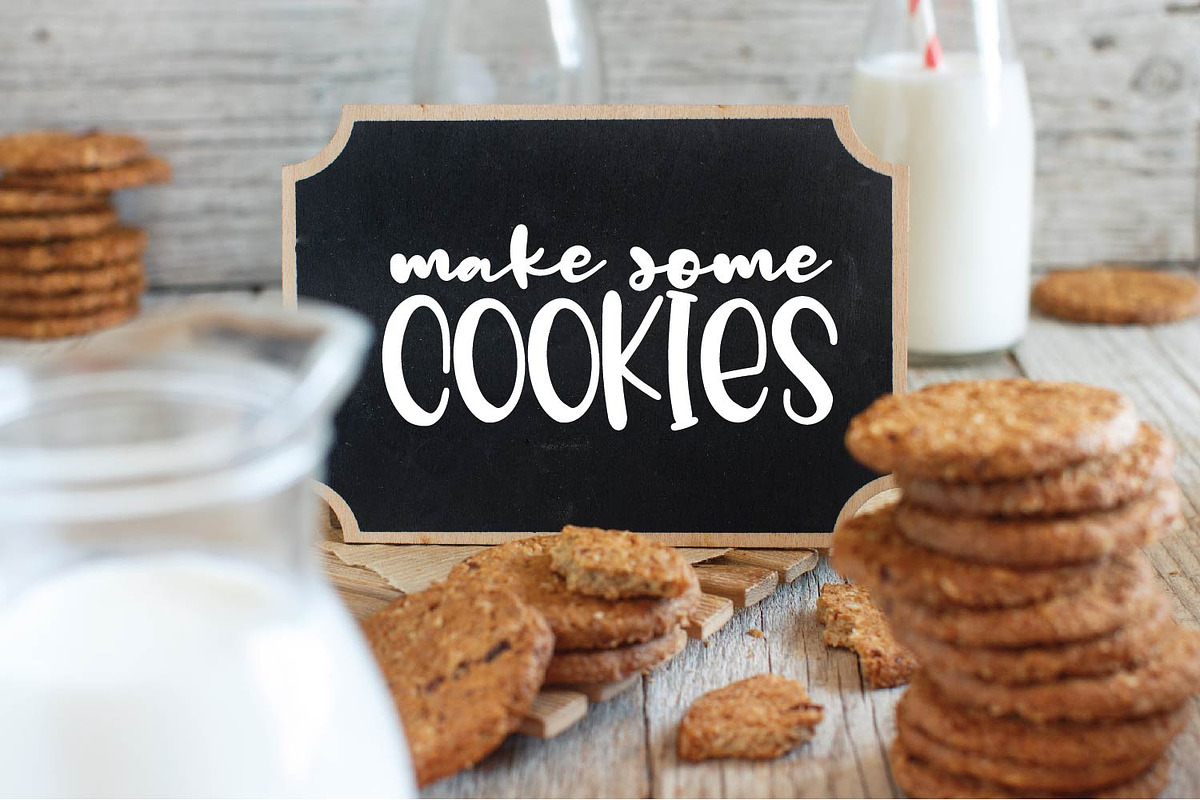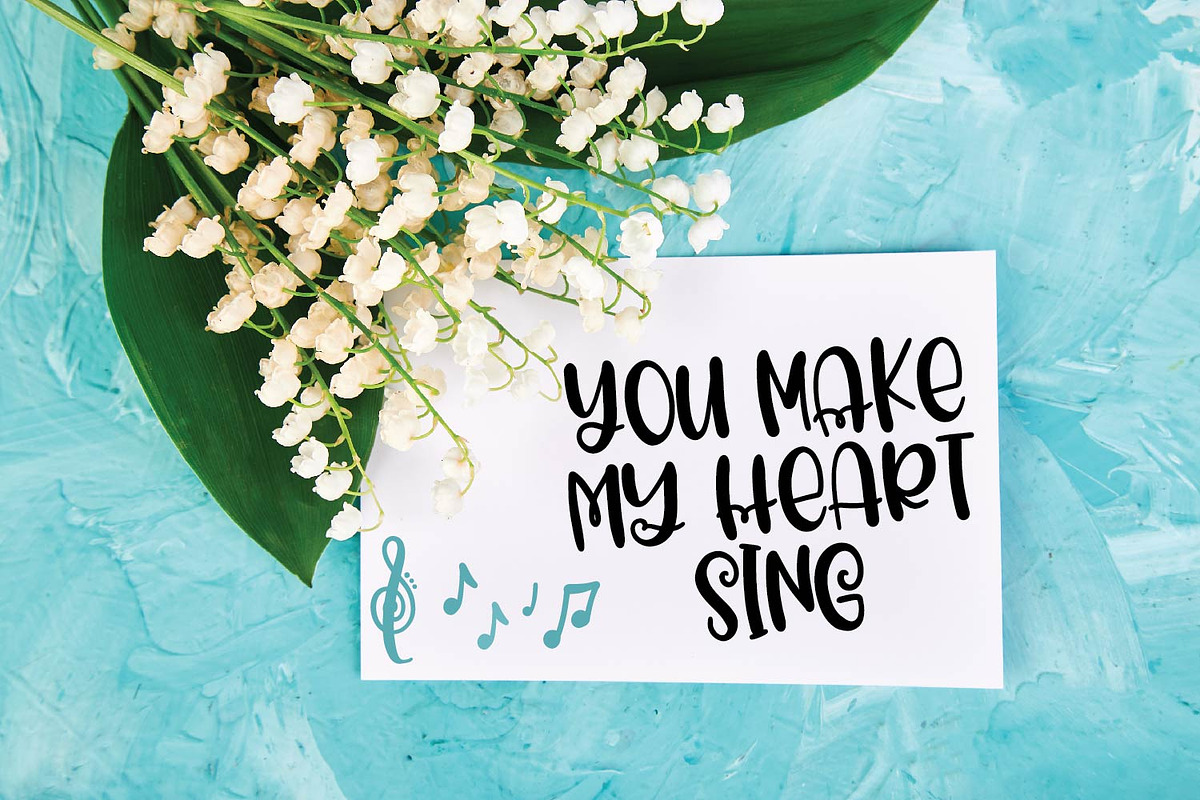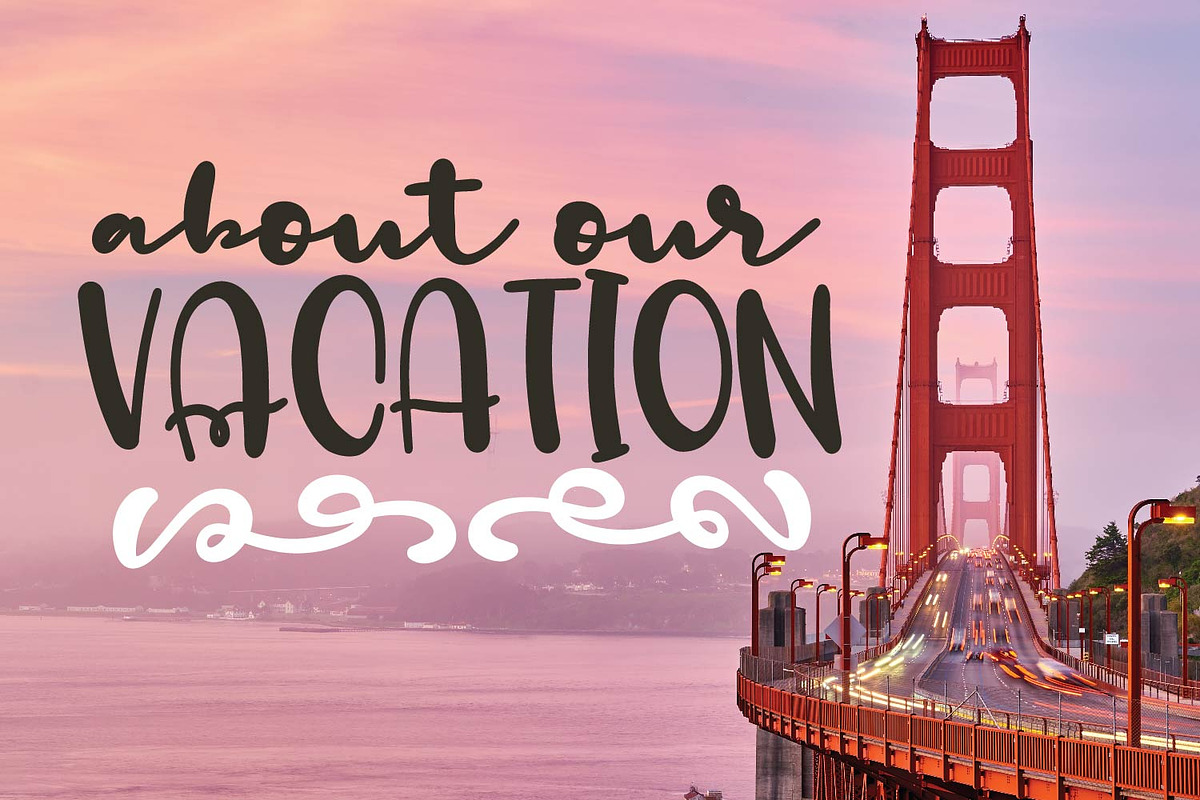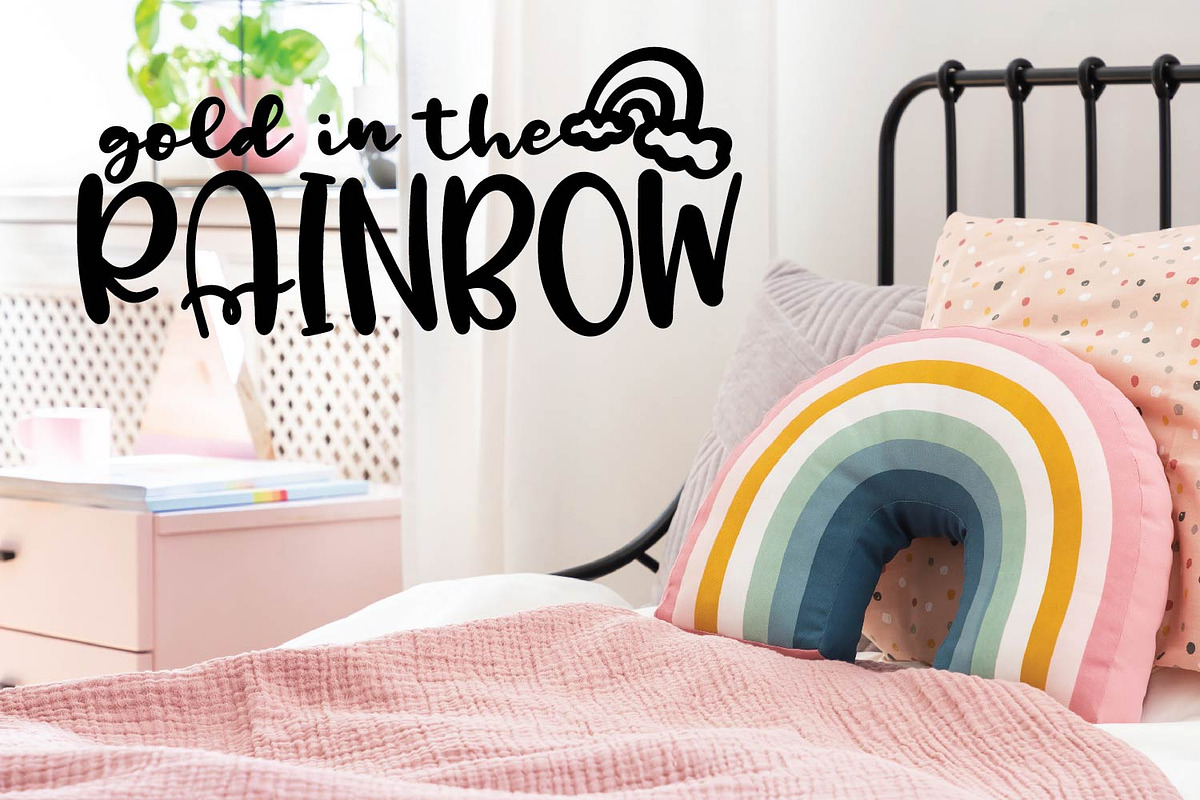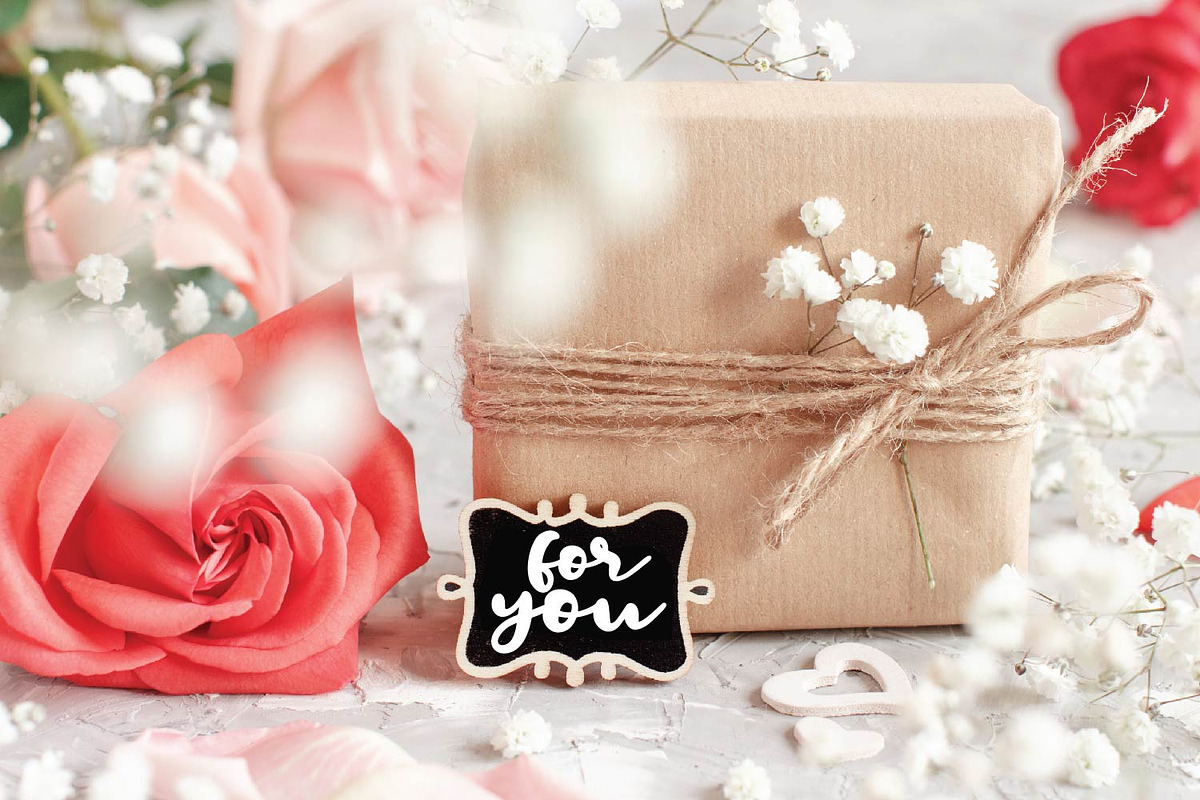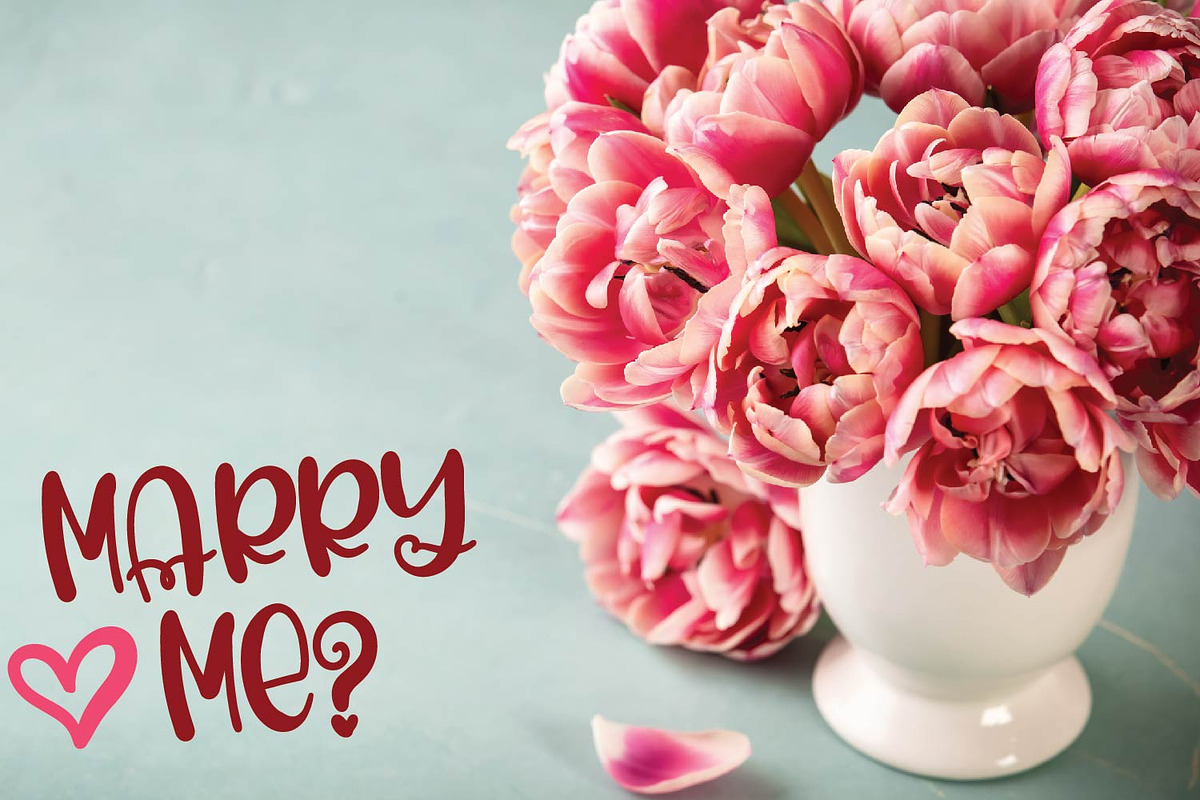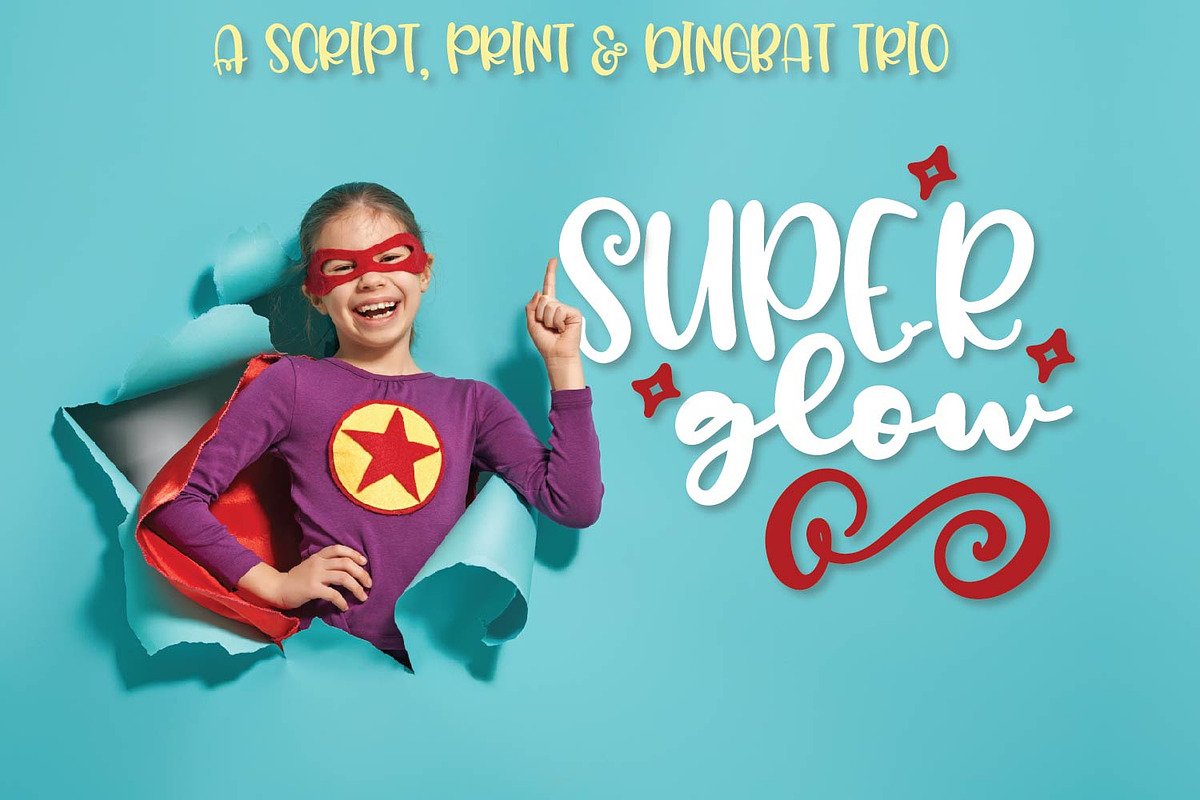
Marshmallow & Fluff - A Font Trio
Marshmallow Fluff A Font Trio by CraftyLittleNodes is a font selected for branding, posters, packaging, typography.
Why Marshmallow & Fluff - A Font Trio is worth a look
Marshmallow & Fluff - A Font Trio by CraftyLittleNodes fits naturally into Branding, posters, packaging, typography.